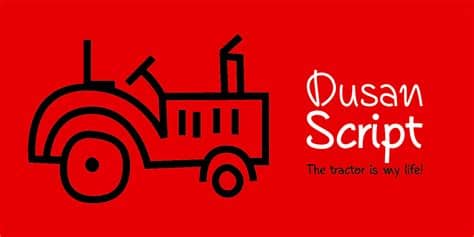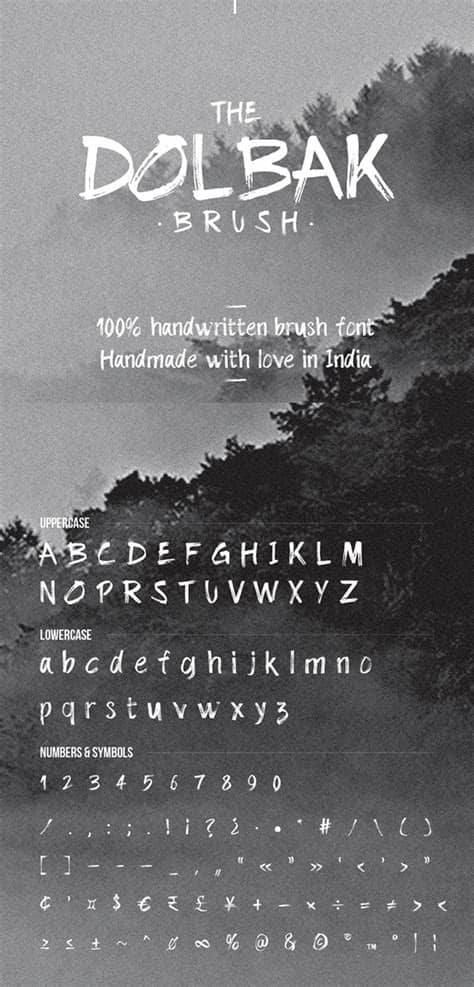
We're amazed at the number, and quality, of free fonts available today. ... This collection includes the best free script fonts, serif fonts, sans-serif fonts, decorative fonts, and much ... Shella is a bundle of 3 different typefaces with various styles.
Best Urban Script Font : 20 Best Free Urban Fonts for Designers - CSSDive : Urban heroes à € by imagex.. With over 8,000 freeware fonts, you've come to the best place to most fonts on this site are freeware, some are shareware or linkware. / 8+ best urban fonts. Find amazing script styles in this collection for 2020.30 beautiful modern script fonts there's nothing more satisfying than pairing the. This font is great for posters related to the arts, music and urban activities. Demo donationware free free for personal use public domain, gpl, ofl shareware.
✓ click to find the best 76 free fonts in the script urban style. Similar fonts for xxii urban cutouts script from creativemarket.com. Poster templates script fonts cool fonts urban good things inspiration biblical inspiration fonts inspirational. Font name newest most downloads. So you can use these fonts for your logos, clothing, banners, posters, or even youtube thumbnails! You can use any one amongst these 50 best free script fonts for your next project and make your design stand out. Welcome to fontlot · your favorite site for free fonts. City dwellers have diverse ways of expressing themselves through creative and destructive art.
Every font is free to download! So you can use these fonts for your logos, clothing, banners, posters, or even youtube thumbnails! Google fonts now supports variable fonts. ✓ click to find the best 76 free fonts in the script urban style. This font is great for posters related to the arts, music and urban activities.
Urban decay is a handmade brush font that creator zofos made to 'celebrate graffiti, urban exploration, street calligraphy and inner city the hoodson script comes with extras (image credit: Choosing the right script font for your designs can be a major decision that impacts the overall visual appeal of your website or custom designs. The decorative font has one variant on offer. Find amazing script styles in this collection for 2020.30 beautiful modern script fonts there's nothing more satisfying than pairing the. Every font is free to download! Poster templates script fonts cool fonts urban good things inspiration biblical inspiration fonts inspirational. You can use these fonts to create custom styles. We have 7 free urban, script fonts to offer for direct downloading · 1001 fonts is your favorite site for free fonts since 2001. Demo donationware free free for personal use public domain, gpl, ofl shareware. Script urban euro accents handwritten graffiti decorative fancy trash eroded sans serif various techno. Search results for 'urban script' (free urban script fonts). Cursive fonts typography lettering cool fonts handwriting banner branding romantic urban. Google fonts now supports variable fonts.
Hi folks, please check completed typeface and commercial. Poster templates script fonts cool fonts urban good things inspiration biblical inspiration fonts inspirational. Find amazing script styles in this collection for 2020.30 beautiful modern script fonts there's nothing more satisfying than pairing the. Introducing a new typeface called brigherdz.brigherdz came with open type features and multilingual accent good for logotype, poster, badge, book cover, tshirt design, packaging and any more. Cursive fonts typography lettering cool fonts handwriting banner branding romantic urban.
Urbanfonts features an amazing collection of free fonts, premium fonts and free dingbats. Introducing a new typeface called brigherdz.brigherdz came with open type features and multilingual accent good for logotype, poster, badge, book cover, tshirt design, packaging and any more. Рукописные шрифты handwritten, script fonts. Click to find the best 94 free fonts in the street urban style. Hi folks, please check completed typeface and commercial. We have 111 free urban fonts to offer for direct downloading · 1001 fonts is your favorite site for free fonts since 2001. Poster templates script fonts cool fonts urban good things inspiration biblical inspiration fonts inspirational. So you can use these fonts for your logos, clothing, banners, posters, or even youtube thumbnails!
Poster templates script fonts cool fonts urban good things inspiration biblical inspiration fonts inspirational.
Font name newest most downloads. Different fonts can be used and look best on different uses. Click to find the best 94 free fonts in the street urban style. Urbanfonts features an amazing collection of free fonts, premium fonts and free dingbats. You can use any one amongst these 50 best free script fonts for your next project and make your design stand out. Some fonts provided are trial versions of full versions and may not allow. Every font is free to download! Archive of freely downloadable fonts. We have 111 free urban fonts to offer for direct downloading · 1001 fonts is your favorite site for free fonts since 2001. Script urban euro accents handwritten graffiti decorative fancy trash eroded sans serif various techno. Are you willing to get hold of a few of the most excellent free urban fonts? You can use these fonts to create custom styles. So you can use these fonts for your logos, clothing, banners, posters, or even youtube thumbnails!